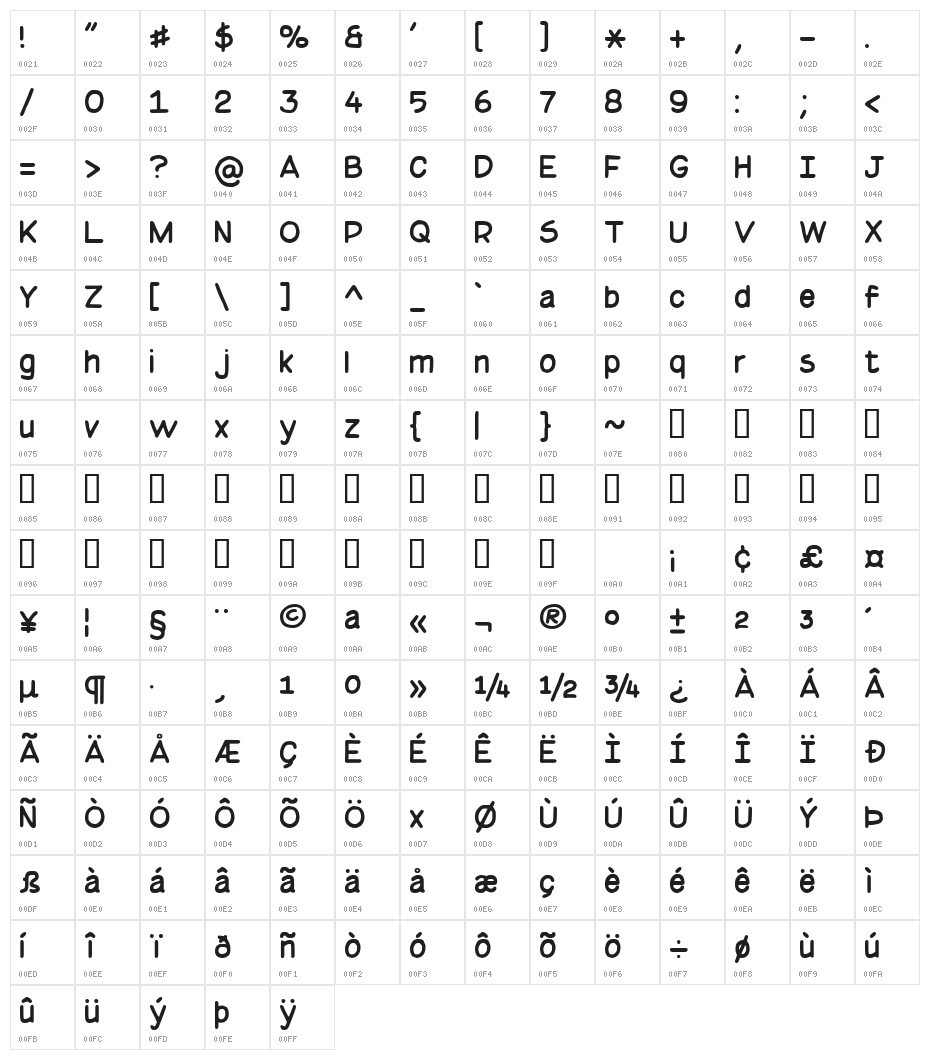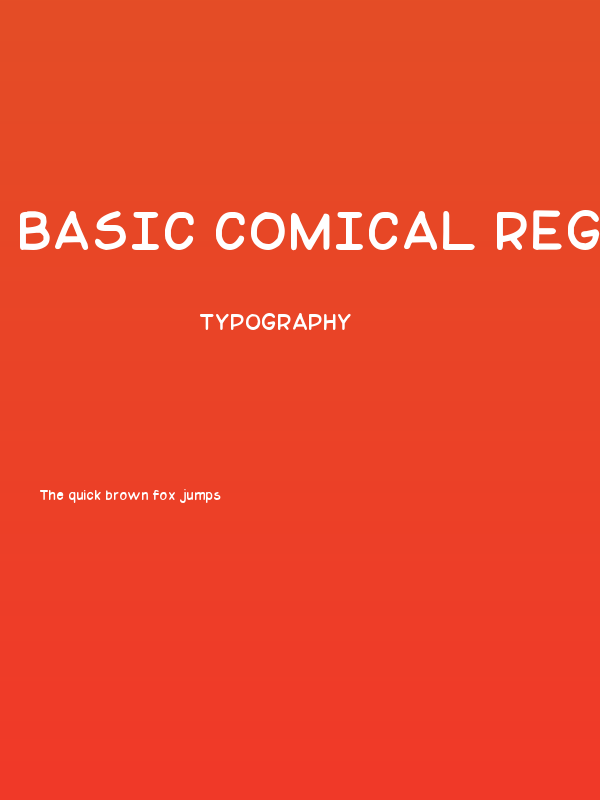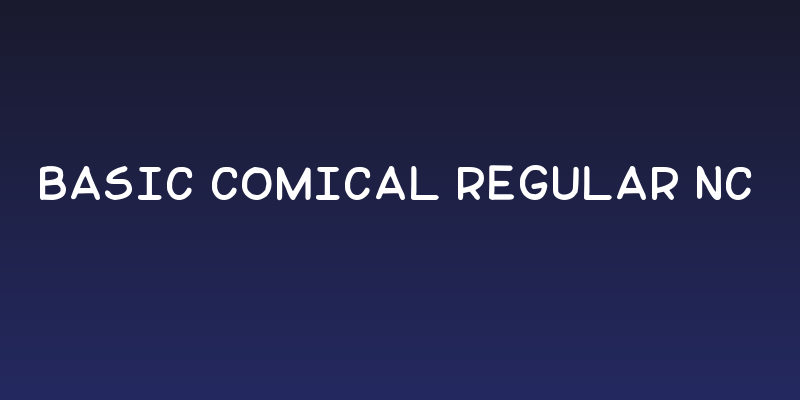
Basic Comical Regular NC Font
Basic Comical Regular NC Description
This playful and whimsical font features rounded edges and a casual, handwritten style that evokes a sense of fun and informality. The characters are bold and slightly irregular, adding to the font's charm and approachability. Its design is reminiscent of comic book lettering, making it ideal for projects that require a lighthearted and friendly tone. The font maintains consistent stroke thickness, ensuring readability while still conveying a sense of movement and energy. It includes a full set of uppercase and lowercase letters, numbers, and a variety of special characters, making it versatile for various applications.
| Proposed Projects | Ideal for children's books, comic strips, playful branding, and informal invitations. |